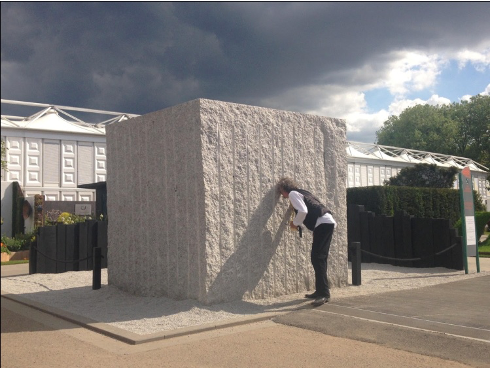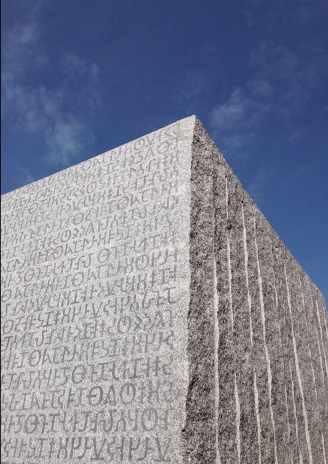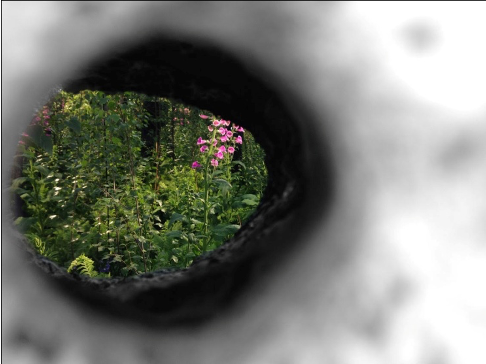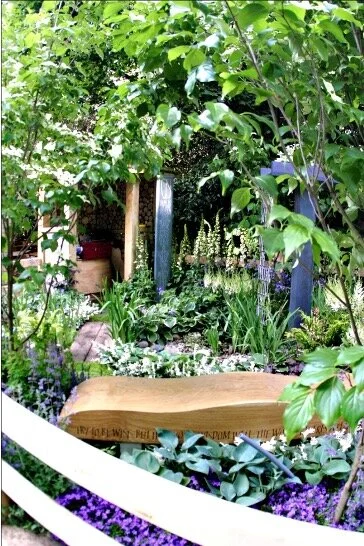
Chelsea gold for letter carver’s garden
On Sunday 17 May 2020 the first of the BBC’s programmes reviewed some previous years’ highlights including the ‘Antithesis to Sarcophogi’ designed and created by Gary Breeze and Martin Cook – both these artists are on the Lettering Arts Trust register. They are renowned for their individual artworks for public and private commissions and together they made a winning combination, indeed winning an the prestigious Best Fresh Garden award for ‘Antithesis to Sarcophogi’ in 2016.
The garden was inspired by enormous granite blocks that Gary had spotted in a stone merchant’s yard some years earlier when he was sourcing the orb for his design for the Bali bombing memorial. The 44 ton block was hollowed out from the interior of the cube before fixing mirrors and planting with miniature conifers so that the reflections created a mirage of a never ending forest stretching into the distance. And, bearing in mind that Gary and Martin are lettering artists as well, an intriguing inscription featuring characters from different alphabets was painted on the back. The garden was sponsored by the Marble & Granite Centre.
Inscription on the back of the cube
The interior of the cube - images by Gary Breeze
Of course, most people don’t have room for a 44 ton rock in their back garden and look for something more modest – and personal. This is where the Lettering Arts Trust can assist, but it helps to know what to consider when planning a garden ornament. The master letter carver Michael Harvey advised Martin Cook, then working for him, that you should ‘always make sure that it serves it function’.
Other things to bear in mind when planning to commission a garden artwork are location, scale and material.
“Materials vary so much. Some weather quickly and whereas a stone table may slowly gather an endearing patina, a sundial needs to remain functional and legible,’ recommends Martin. ‘Choose oak for a garden bench, preferably indigenous to the UK. The grain is compact and it silvers beautifully.”
Slate is a good choice of stone for garden ornaments as it doesn’t green, attract lichen or get mossy. But, of course some people may prefer this naturalising process.
Gary Breeze advocates clarity for positioning artworks in a garden: “It’s really important to make sense of the intended space – and to fit the work and the material to the existing palette in the garden. The piece will gain meaning from the manner in which it is placed. When it comes to scale, works tend to be bigger than you think for the outdoors.’ He goes on to emphasise that garden artworks must serve their purpose. ‘Be clear as to whether the commission is for a sculpture or a particular function, but avoid a hybrid.”
Commissioning an artwork is just that – the outcome is an artwork. The relationship between the client and the artist is special. It is a collaborative process and ideally the client should bring an open mind and offer pointers for the brief so that the artist can respond with their creative interpretation. As Gary says, “I’m not just a chisel for hire!” which is beyond doubt when you have a chance to see the numerous beautiful, individual sculptures he has created and the lettered inscriptions he has composed and cut.
Another award winning garden at Chelsea, winning Silver-Gilt in 2011 was ‘The Poet’s Retreat’ - a literary garden designed and crafted by Martin Cook - and it seems fitting to mention it here too, given the focus of the Lettering Arts Trust. The inspiration for this garden came from Martin’s work with Ian Hamilton Finlay at his garden Little Sparta. It comprised an array of carved elements including an oak gate with limestone pillars featuring lines from Felix Dennis’ ‘The Road Is Made By Working’. Another of his quotes was on a garden bench: ‘be wise, but hide your wisdom well, the world reveres an oyster but not its shell' Slate stepping stones were inscribed with words from Revelations, while a slate water feature referenced Thomas Fuller’s quote, ‘We never know the value of water until the well is dry’. A standing stone with Martin’s poem – a reminder to ‘Enjoy Life’ has proved a popular garden artwork ever since.
Inscriptions enhance the atmosphere in a garden. Amongst the most popular is Dorothy Frances Gurney’s “The Kiss of the sun for pardon, Song of the birds for mirth, You’re closer to God’s heart in a garden, Than any place on earth’.
The Literary Garden by Martin Cook
So please - take inspiration from some of the gardens that have graced the Chelsea Flower Show and admire the skill of the sculptors and letter carvers who add a whole new dimension. You may wish to commission an artwork for yourself. Meanwhile, we can relate to Stanley Crawford’s ‘A Garlic Testament: Seasons on a Small New Mexico Farm’ “To dream a garden and then to plant it is an act of independence and even defiance to the greater world.”
The art of letter carving is a precious heritage craft which is surely worth cultivating.
Their accomplishments at the Chelsea Flower Show include:
2011: The Literary Garden – RHS Silver Gilt (Martin Cook)
2013: The Mindfulness Garden – RHS Gold Medal (Martin Cook)
2016: The Green Burial Garden – RHS Gold Medal (Gary Breeze)
2016: Antithesis of Sarcophogi- RHS Gold Medal and Chelsea ‘Best Fresh Garden’ (Gary Breeze & Martin Cook)
2017: Broadland Boat Builders Garden – RHS Gold Medal (Gary Breeze)